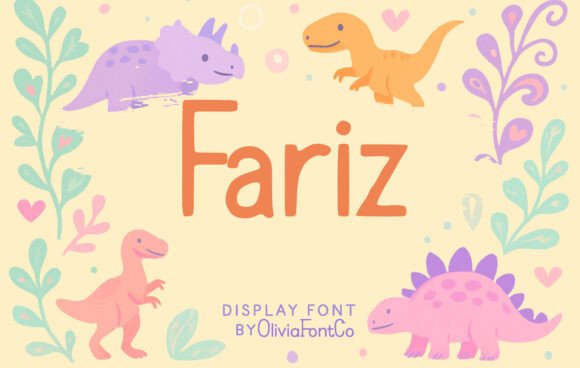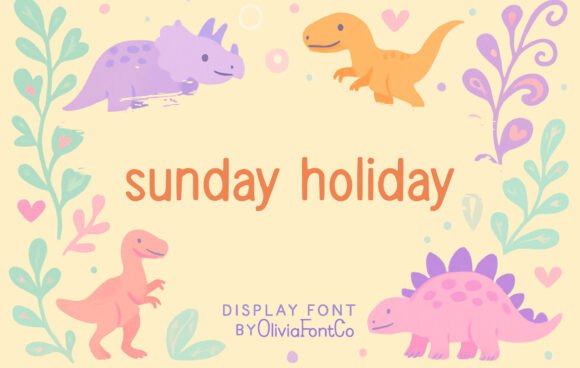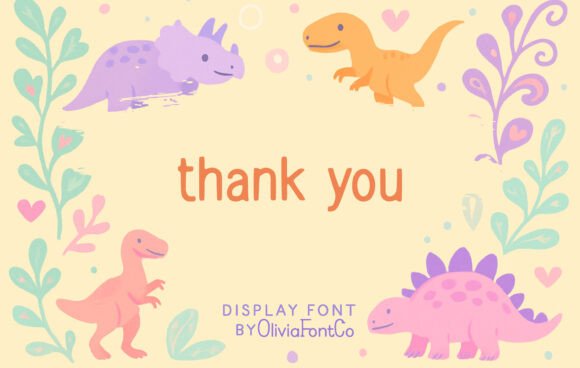
Fariz Font
About the Fariz Font
From logos to headlines, the Fariz Font is the perfect choice for making a lasting impression. This font is designed to be a true favorite and it has the potential to take your creative ideas to the highest level
Fariz’s strong, yet legible forms make it ideal for headlines, short-form text in branding materials, and impactful posters. Its confident personality also lends itself well to packaging design where a clear and bold message is key. However, its weight and character spacing make it less suitable for body text or extended paragraphs, and its distinctive style might clash with the needs of UI design.
The font exudes a bold and modern personality, suggesting energy and sophistication. Therefore, it works best for brands or projects that convey confidence and a touch of luxury.
Pairing Fariz with a clean sans-serif like Open Sans for body copy provides excellent contrast and readability. For a more playful approach, consider pairing it with a handwritten script font, while a geometric sans-serif offers a sophisticated and contemporary alternative.
Fariz Font Usage Examples
Fariz Font Example